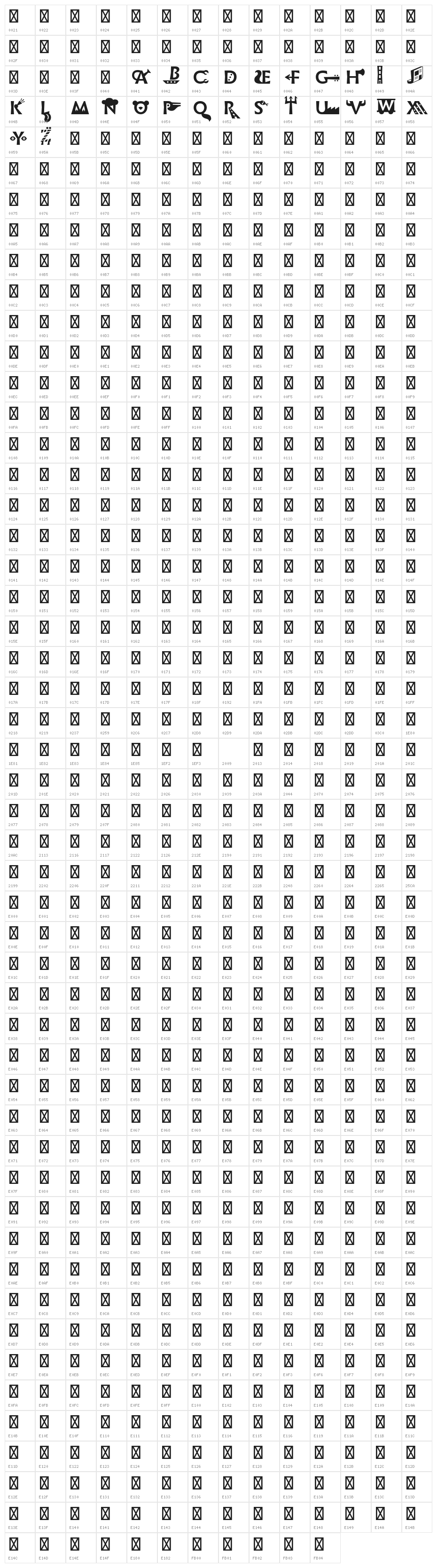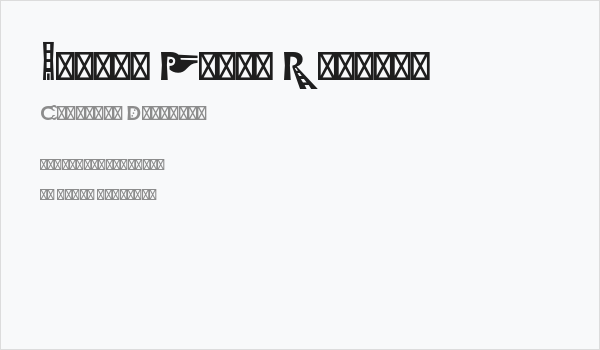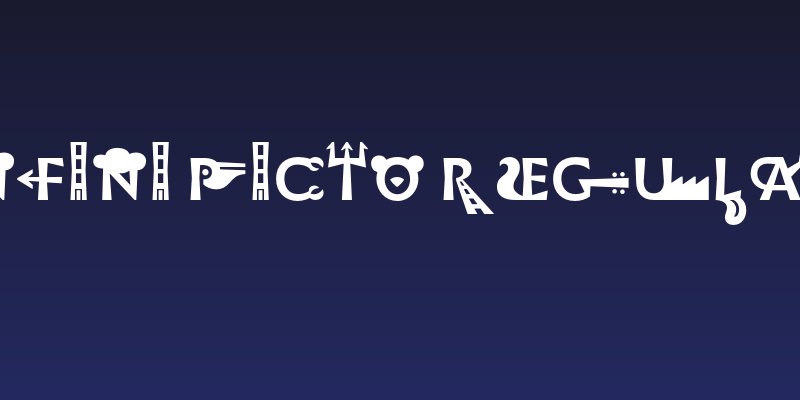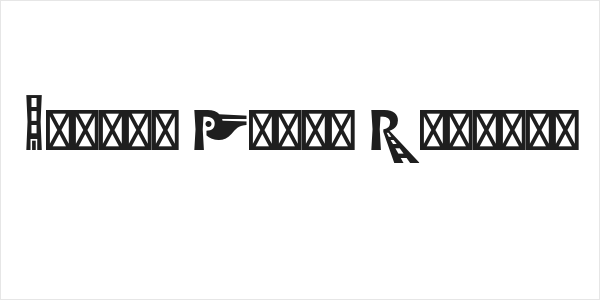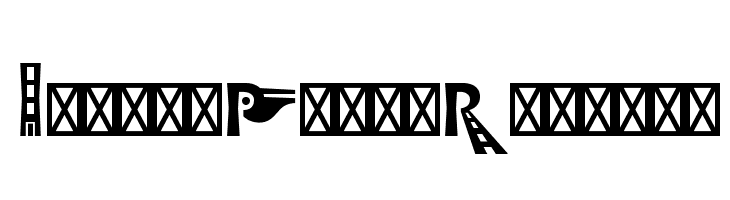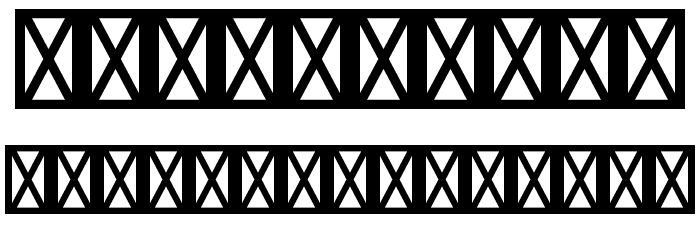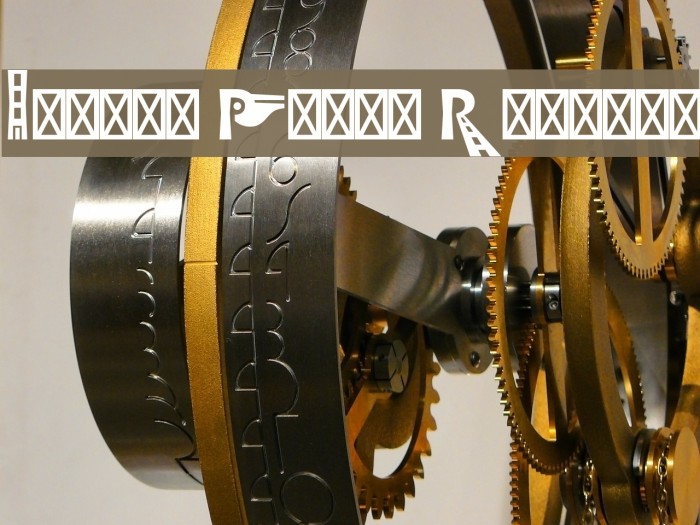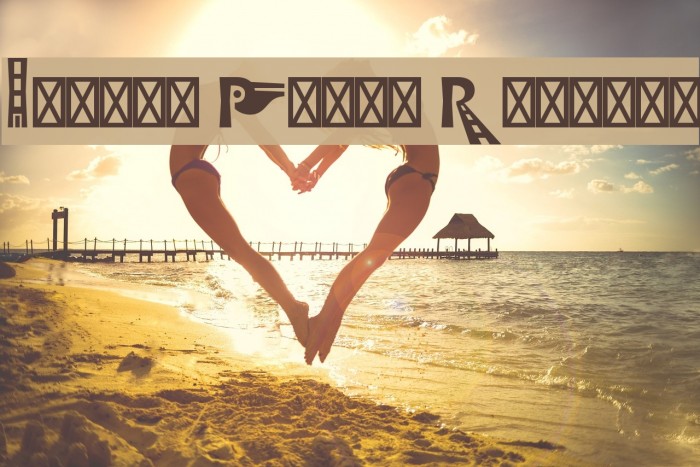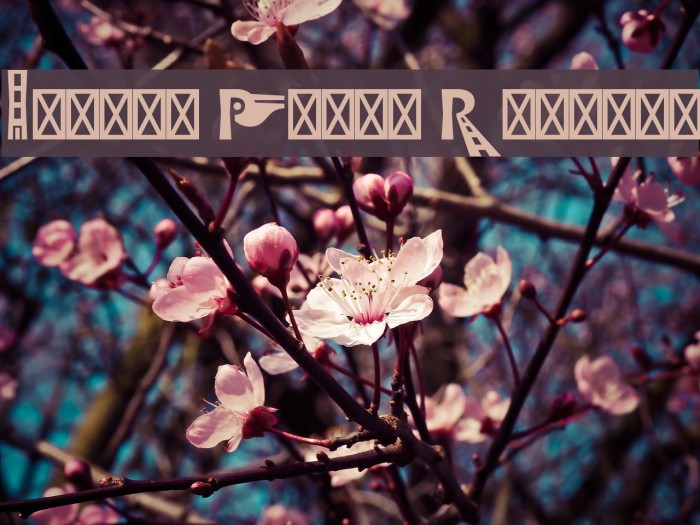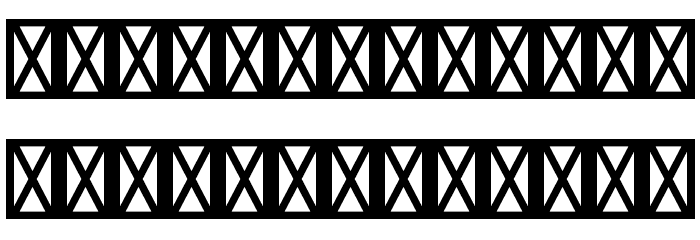
Infini Picto Regular Font
Infini Picto Regular Description
This font is a playful and creative display typeface that incorporates whimsical and illustrative elements into each character. Each letter is uniquely designed with pictorial motifs, such as musical notes, arrows, and abstract shapes, giving it a distinctive and artistic appearance. The font is highly decorative, making it ideal for projects that require a fun and engaging visual style. It does not follow traditional typographic conventions, instead offering a unique blend of art and typography.
| Use Case | Logos, Posters, Creative Projects |
| Proposed Projects | Ideal for children's books, creative posters, playful branding, and artistic projects that require a unique and engaging typeface. |